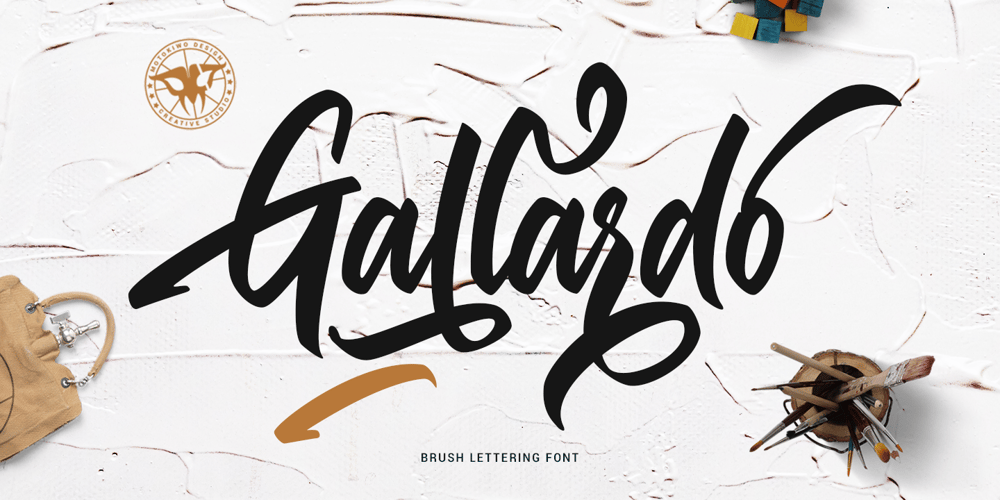
Gallardo Font Family was designed by Anton Cahyono and published by Motokiwo. Gallardo contains 2 styles and family package options. Gallardo is custom brush lettering font with tons of alternates. It’s clean, strong, and elegant script that very useful for various projects. It’s great for urban style and also for vintage.You can easily customize your words with Gallardo because this font has been PUA Encoded and also support special characters for multilingual. You will also get the Prototype Version, a rough version of Gallardo.Features: Stylistic Alternates Stylistic Sets (ss01, ss02, ss03, ss04, ss05, ss06, ss07, ss08, ss09, ss10) Swash Access All Alternates PUA Encoded